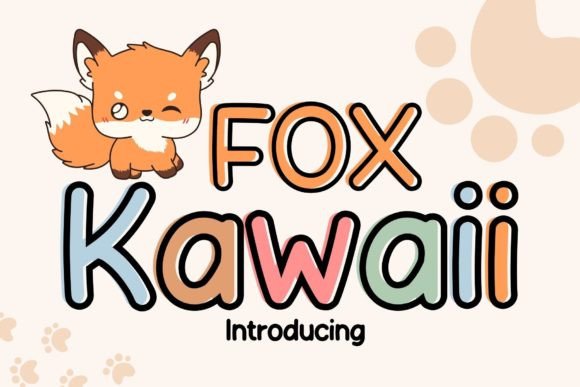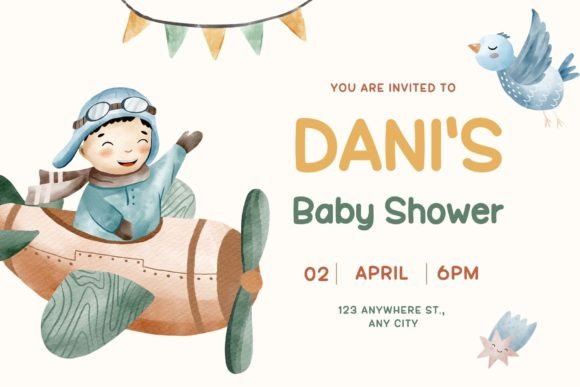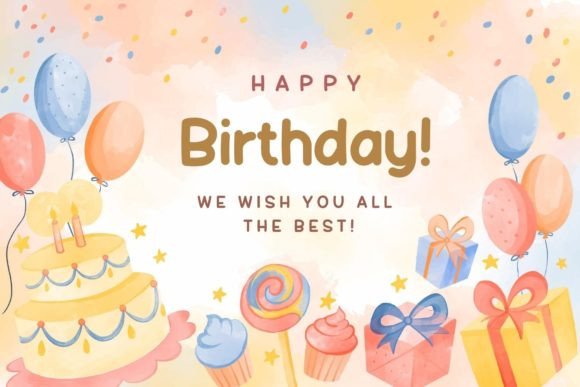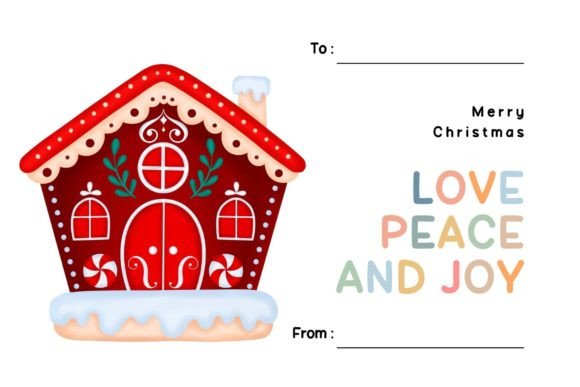
Fox Kawaii Font: A Cute Display Font for Playful DIY & Craft Projects
About the Fox Kawaii Font
Discover the charm of Fox Kawaii Font. This font is a perfect blend of modern aesthetics and classic appeal. Fox Kawaii is a cute and fun display font. No matter the topic, this font will be an incredible asset to your fonts’ library, as it has the potential to elevate any creation. Its cheerful vibe is suitable for kid-friendly designs, posters, wall art, stickers, nursery decorations, or festival valentines, mother’s day, and more!
Fox Kawaii’s playful, rounded forms make it ideal for headlines, short text blocks on posters, and branding elements requiring a touch of whimsy. It excels in applications like children’s books, packaging for toys or sweets, and social media graphics. However, its low x-height and decorative elements make it unsuitable for body text or UI elements where legibility is paramount. Avoid using it for lengthy paragraphs or situations demanding high readability.
To complement its friendly nature, pair Fox Kawaii with a clean sans-serif like Montserrat for body text or a slightly more geometric sans-serif such as Futura for a modern contrast. For a more playful feel, consider pairing it with a handwritten script font, but ensure sufficient contrast in weight and style for optimal readability.
Fox Kawaii’s core personality is undeniably cheerful and friendly, conveying a sense of youthful energy and approachability. Brands targeting a young demographic or projects with a lighthearted tone will find it particularly effective.
Fox Kawaii Font Usage Examples
Fox Kawaii Font Example